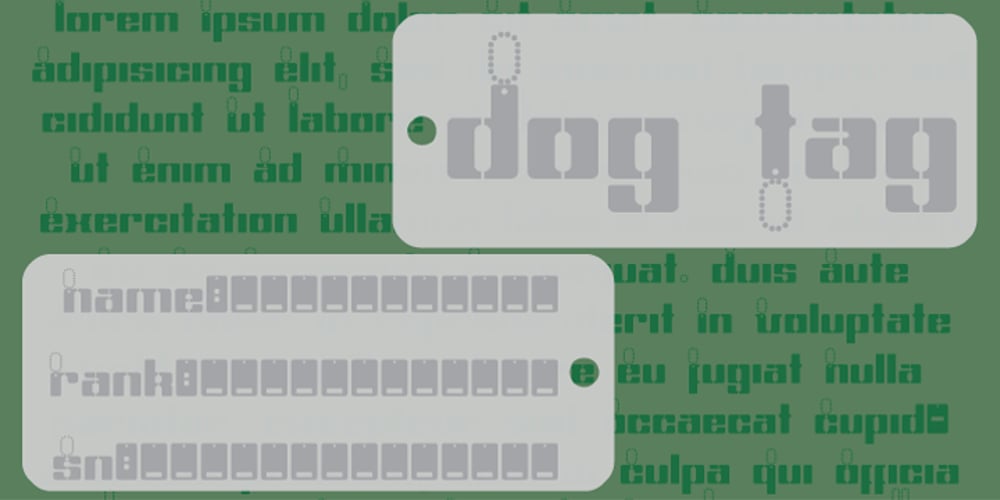
Dog Tag
Dog Tag font
Dog Tag Font Family was designed by Wilson Thomas and published by Funk King. Dog Tag contains 1 styles and family package options. Dog Tag is inspired by dog tags. It provides a modern stencil font and the metal-works to create fun and usable dog tag signage.